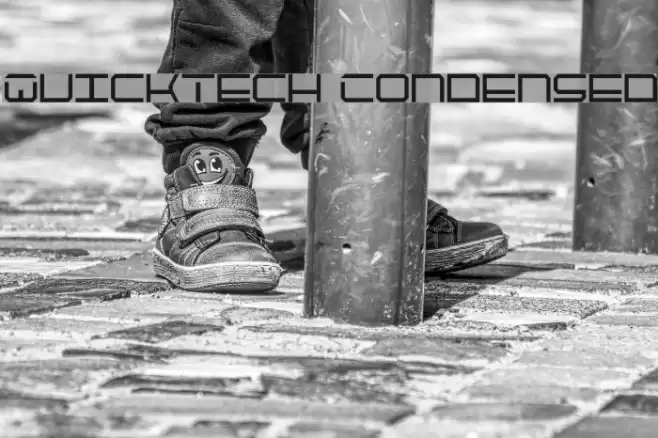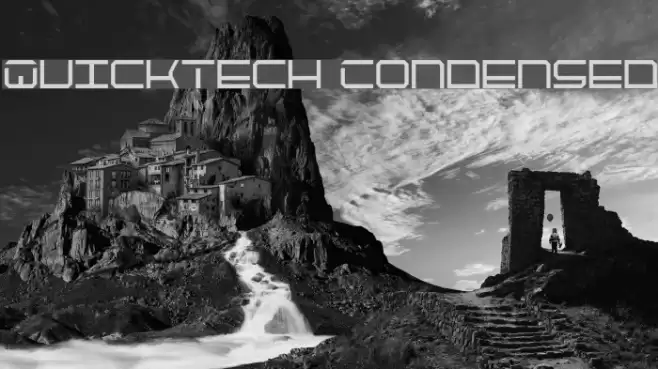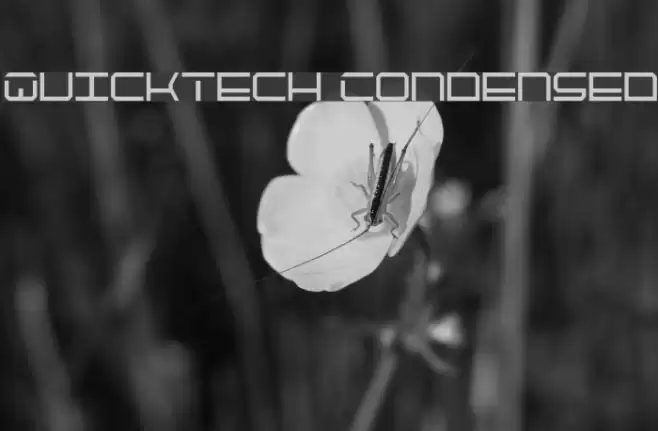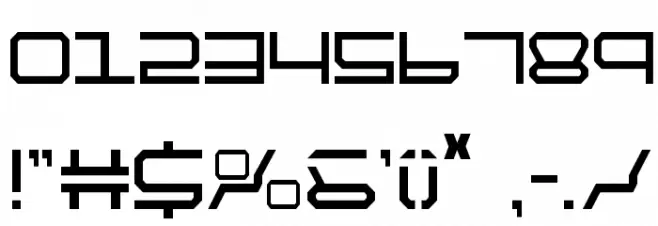
QuickTech Condensed Font
QuickTech Condensed Description
This font features a futuristic and technical design, characterized by its geometric and angular shapes. The letters are constructed with a uniform stroke width, giving it a mechanical and precise appearance. The condensed nature of the font allows for efficient use of space, making it suitable for designs where space is limited. The uppercase and lowercase letters maintain a consistent style, with sharp edges and a modern aesthetic. The numerals and special characters follow the same design principles, ensuring a cohesive look across all elements. This font is ideal for projects that require a sleek, contemporary feel.
A futuristic, geometric font with a condensed and technical design from Images & Symbols fonts.
- Proposed Projects: Ideal for tech branding, digital interfaces, sci-fi themed projects, and modern advertising.